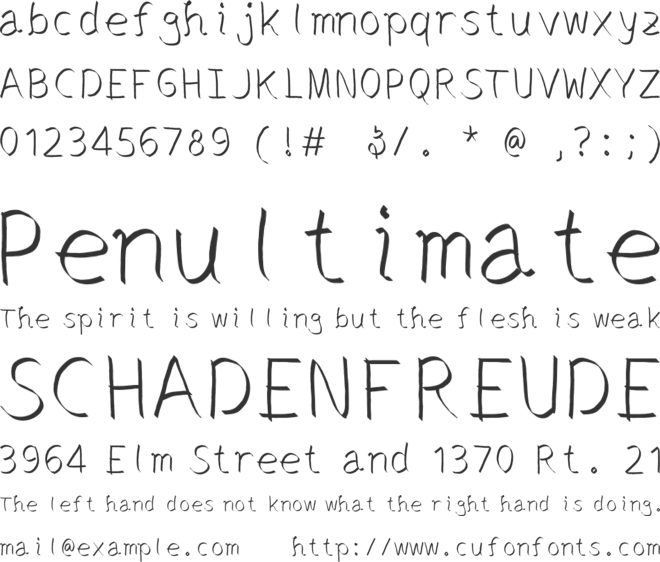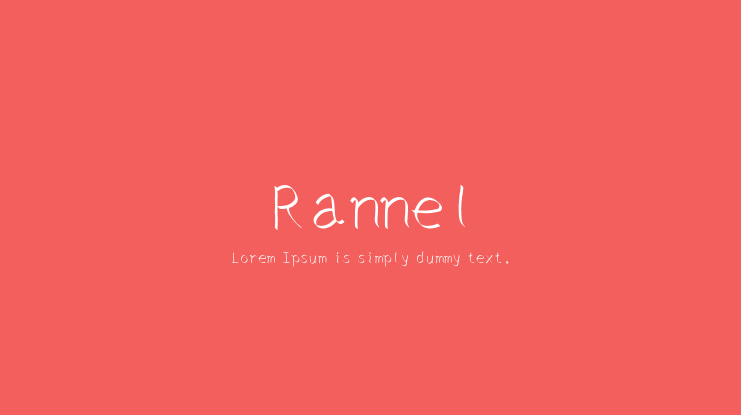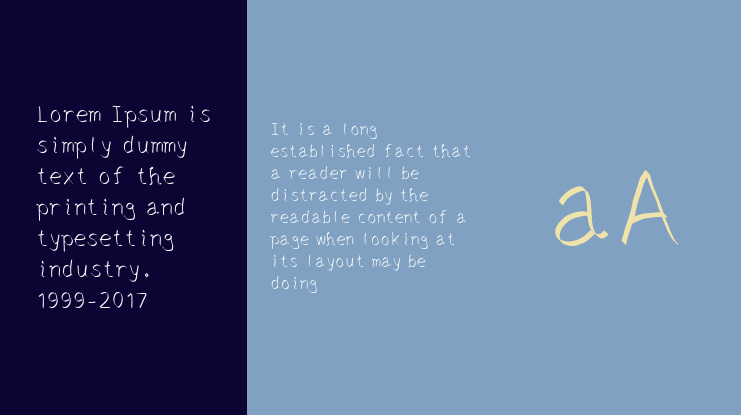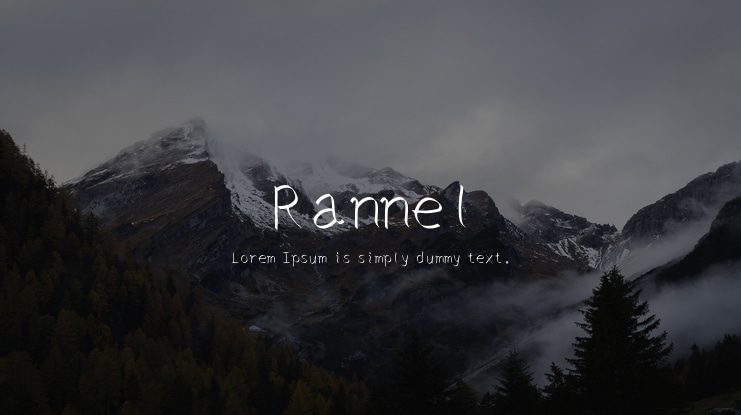
Rannel Font
Rannel feels equally charming and elegant. This handwritten font will look outstanding in any context, whether it’s being used on busy backgrounds or as a standalone headline!